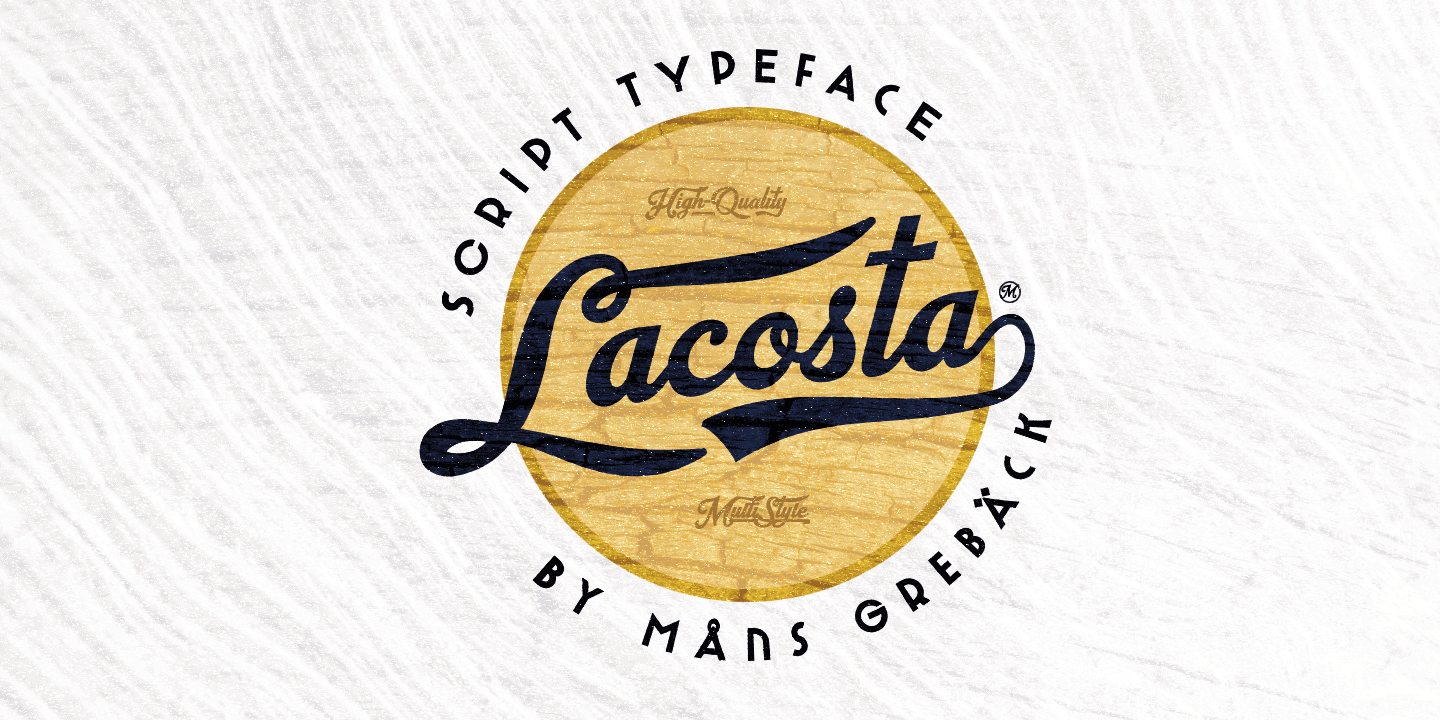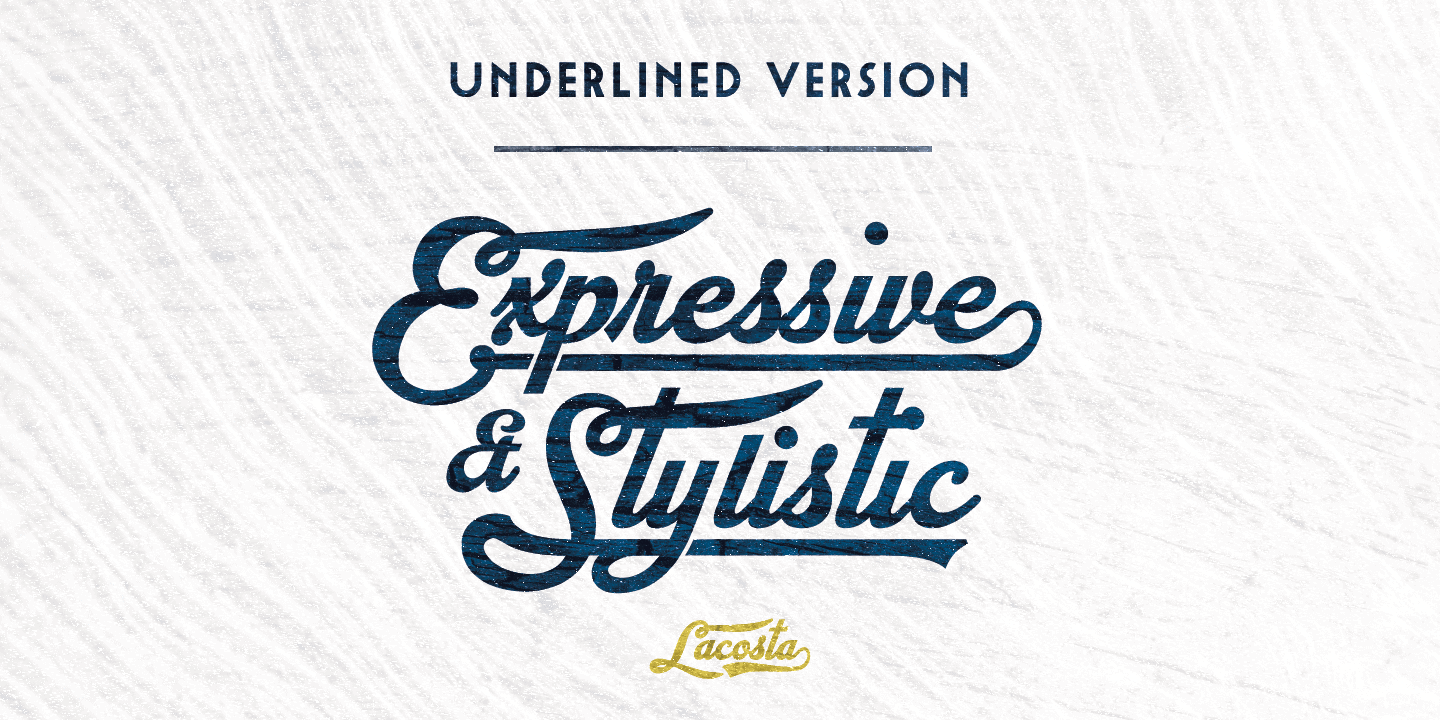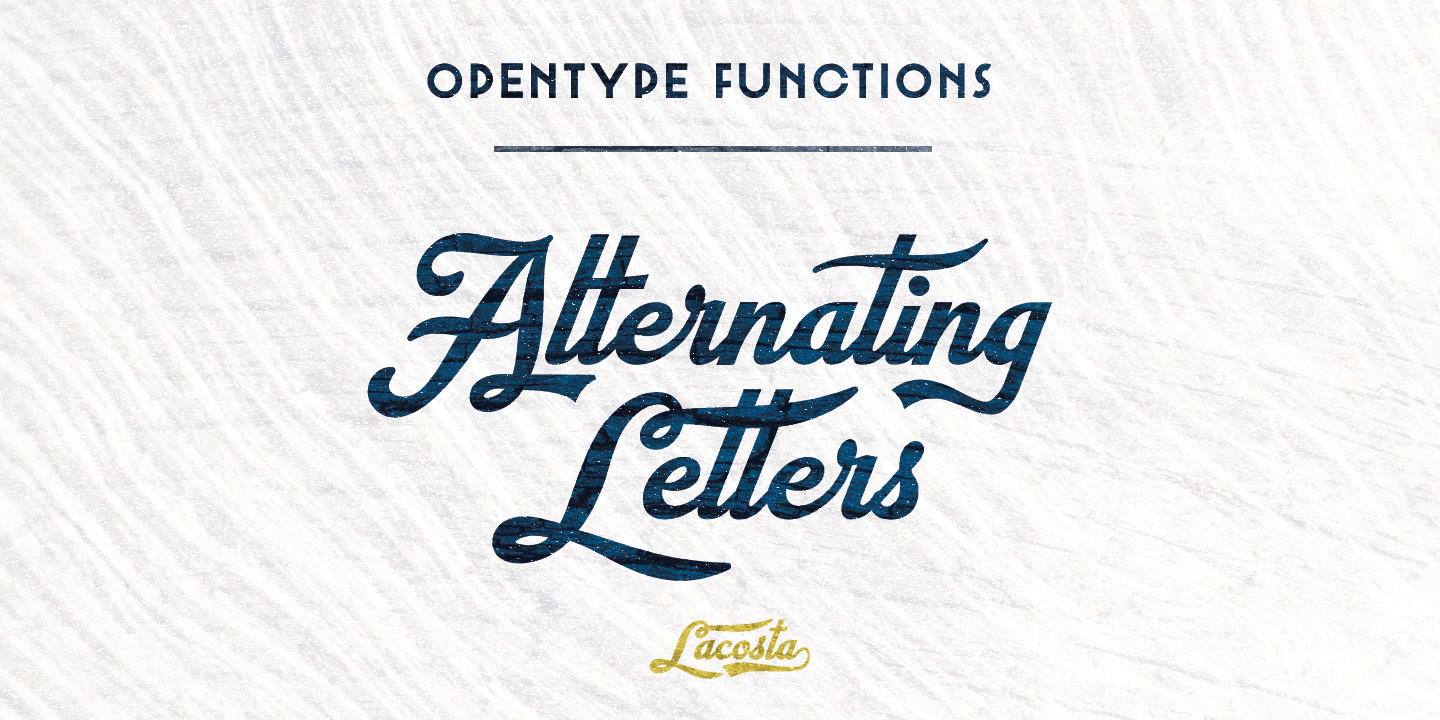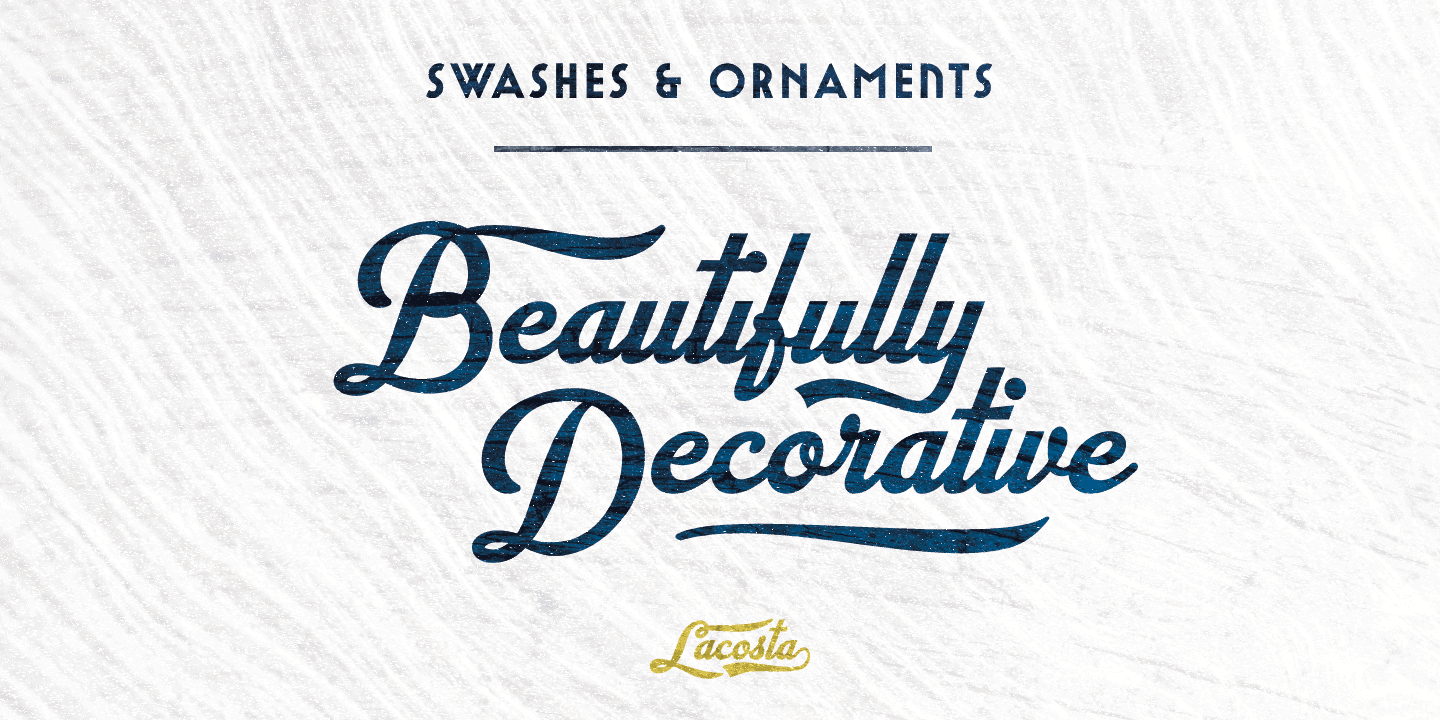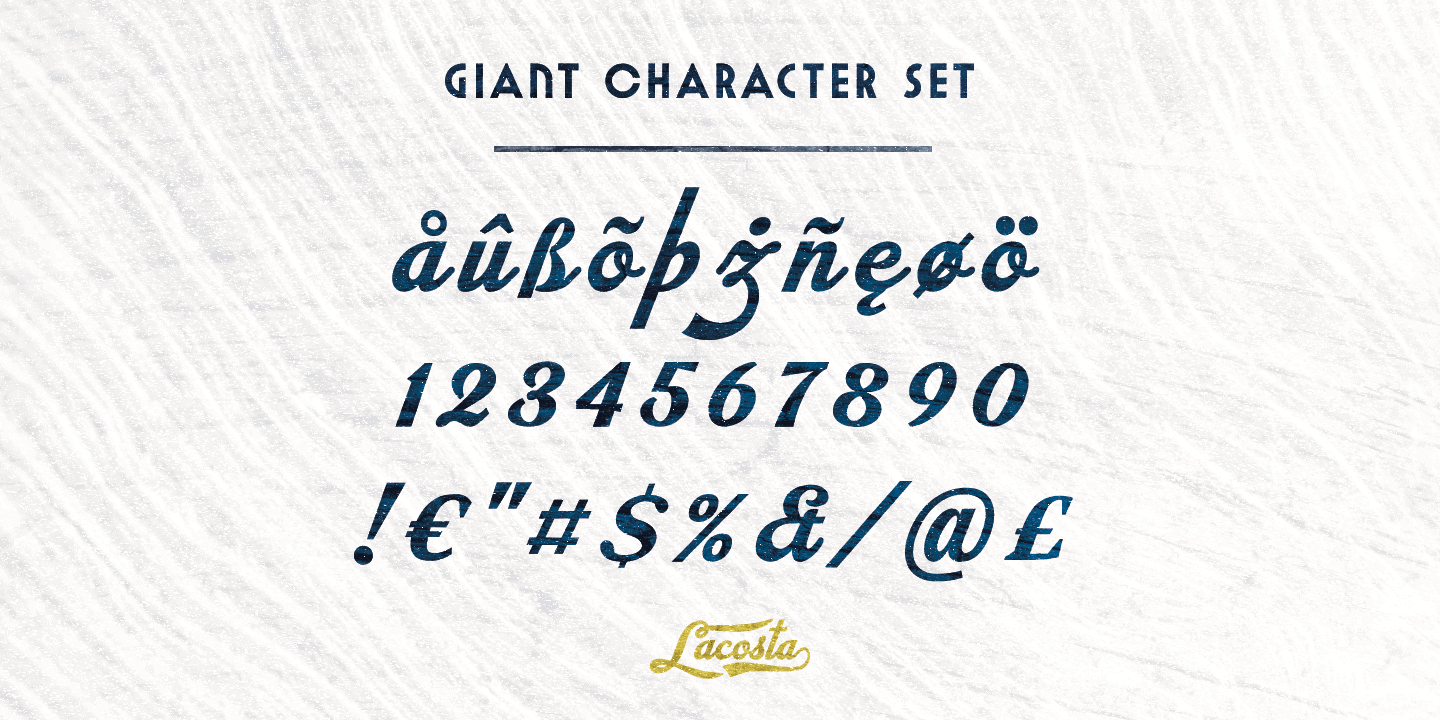
Lacosta
Lacosta is a decorative script typeface, perfect for company or product logotypes, or any typographic art that requires that classic custom look.
Included in the family is the Lacosta Line typeface, a swash underlined variation of the original font.
In addition to being a beautiful, ornamental lettering, it also has a lot of decorative and swash options: Use the symbols [ ] { } _ to create connections, swashes and decorations.
Example: Extra[ Sweet]
Lacosta has a very extensive lingual support, covering all European Latin scripts and contains all characters you’ll ever need, including all punctuation and numbers.